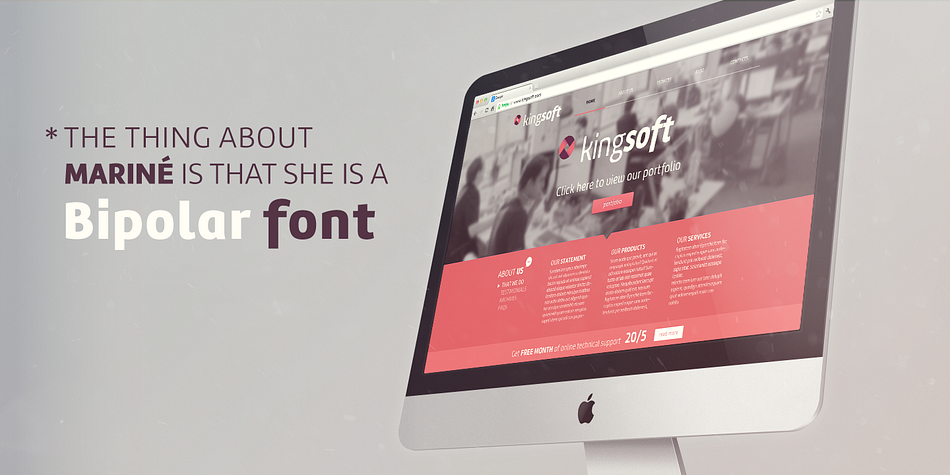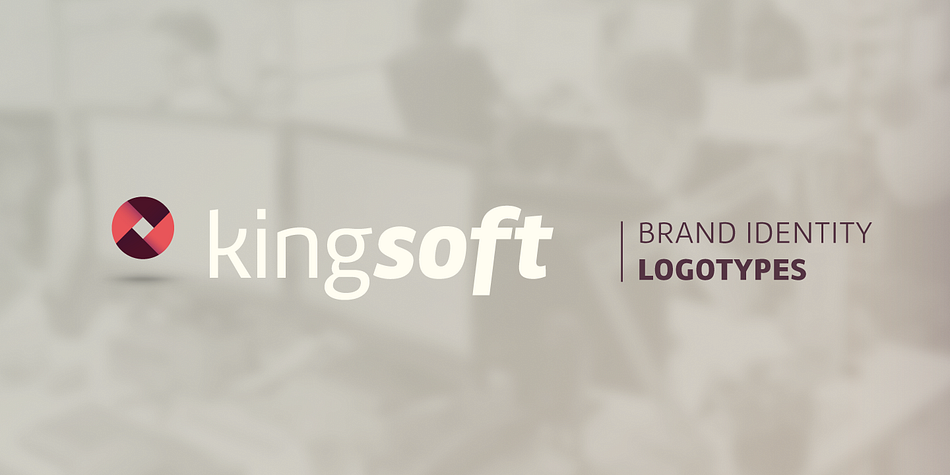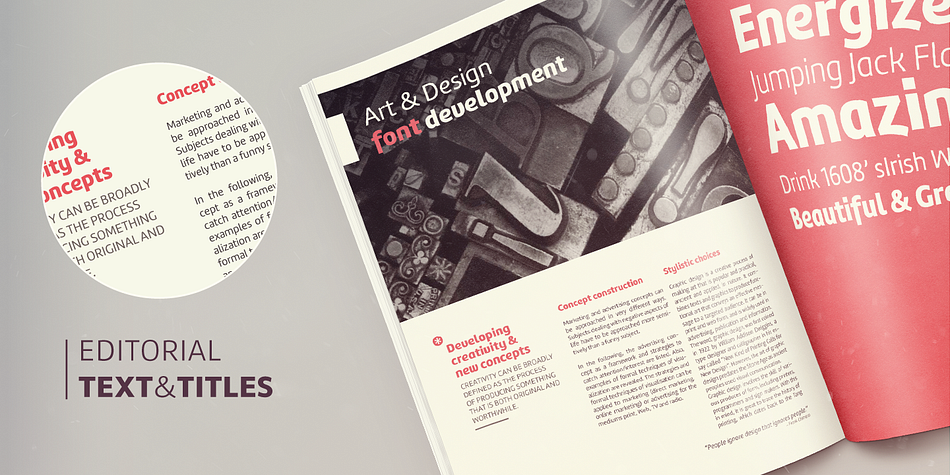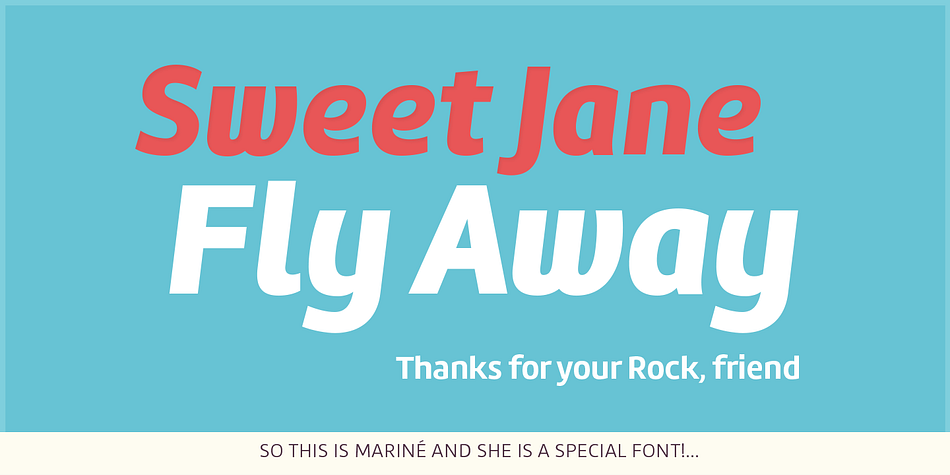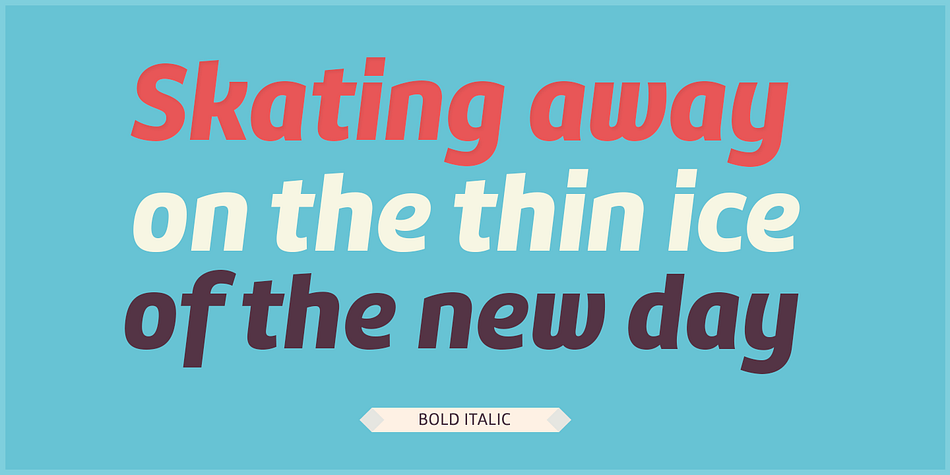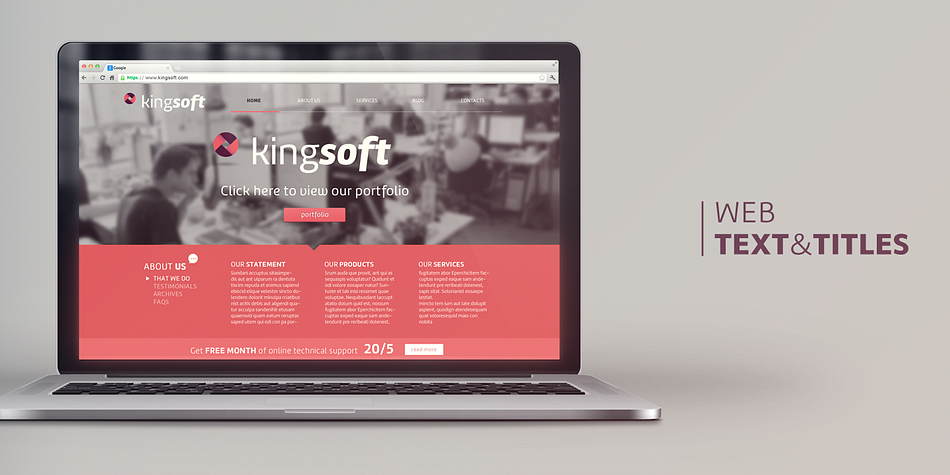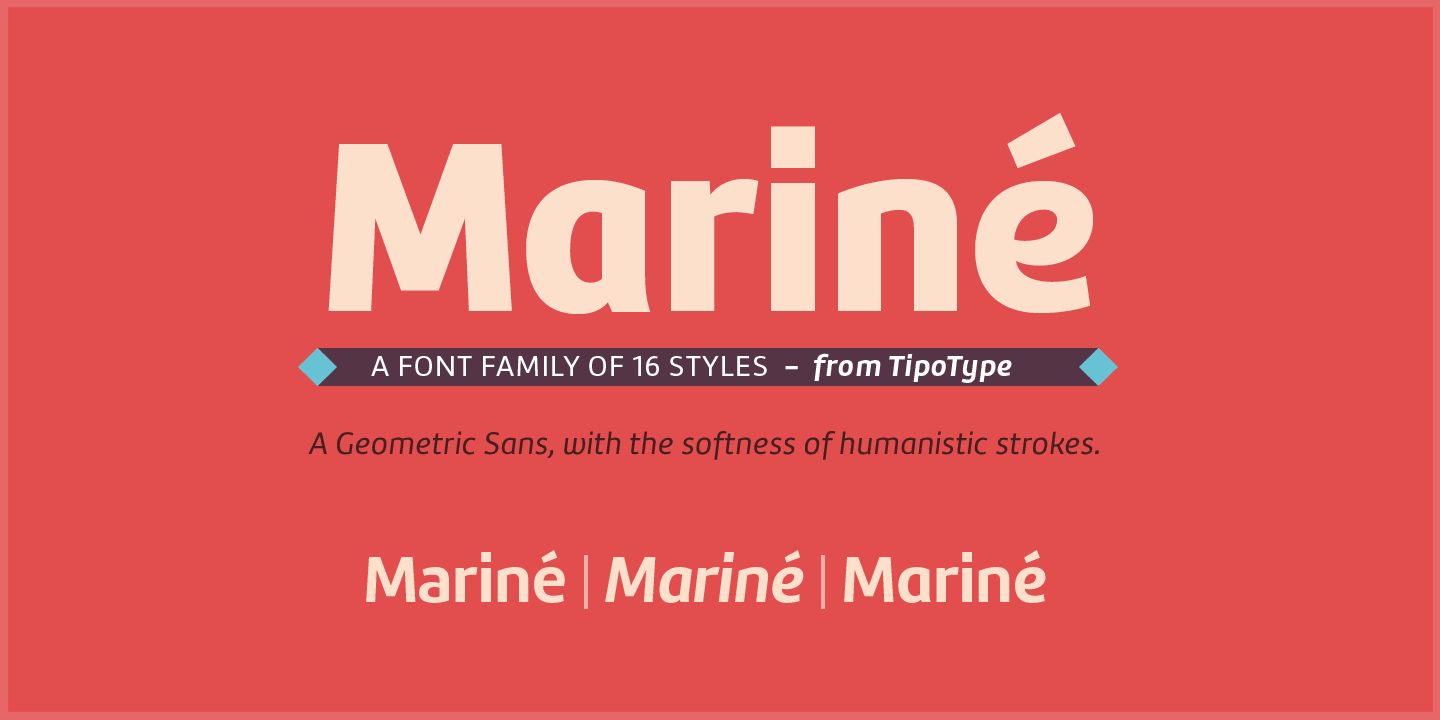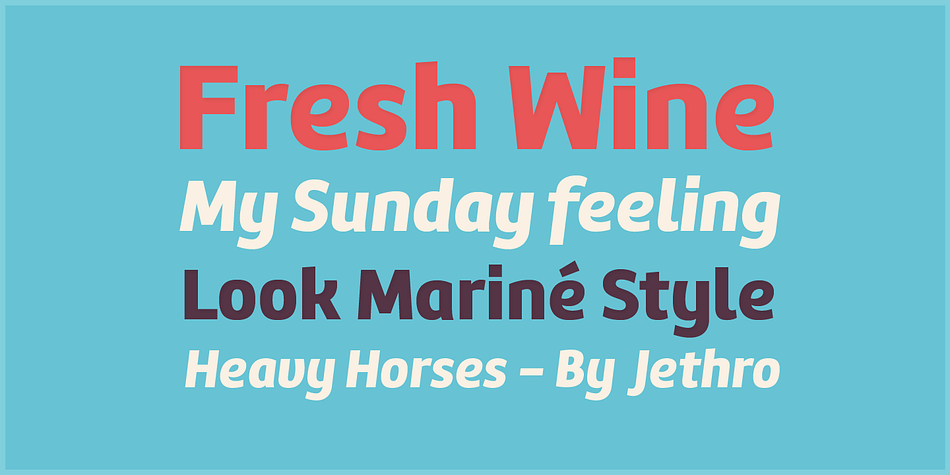
Mariné is a sans serif font family. This typeface has sixteen styles and was published by TipoType.
Mariné is a geometric sans but with the softness of humanistic strokes. It’s mild contrast and multiple different styles allow Mariné to work well as both a text and display font. It also includes an Up version and calligraphic features that add a touch of informality. Mariné is available in an extended family and is the close cousin of Amelia . All differences between Mariné and Amelia appear in the italic and Up versions.